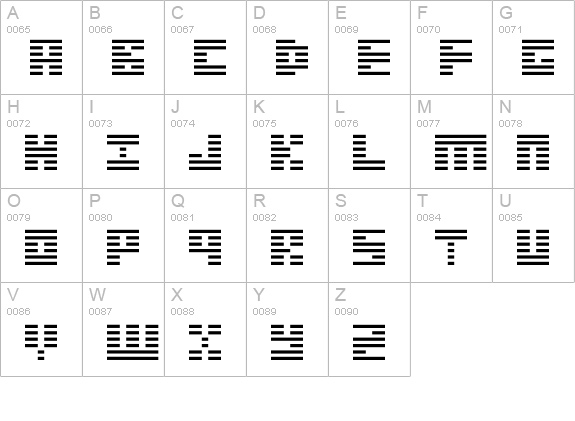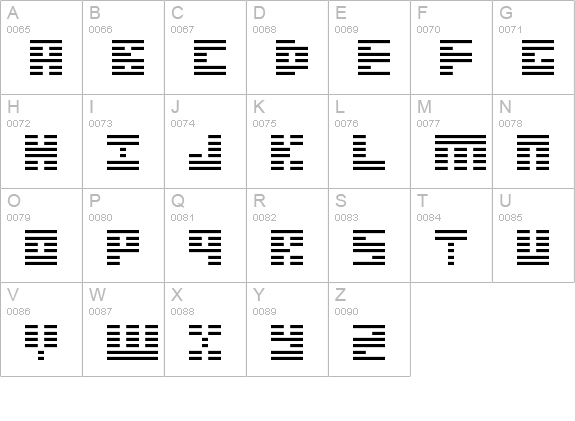
Enduro Font Details
Enduro font is a modern and bold typeface that exudes strength and confidence. With its clean lines and striking design, Enduro is a perfect choice for projects that require a powerful and impactful visual presence. This versatile font is ideal for branding, headlines, posters, and more. The best part about Enduro font is that it is completely free to download at FontsMarket.com. You can easily access this stunning typeface and use it in your projects without any cost. Whether you're a designer looking to add a dynamic touch to your work or a business owner seeking a font that will make your brand stand out, Enduro font is the perfect choice. Download it today and elevate your designs with this impressive and stylish typeface.